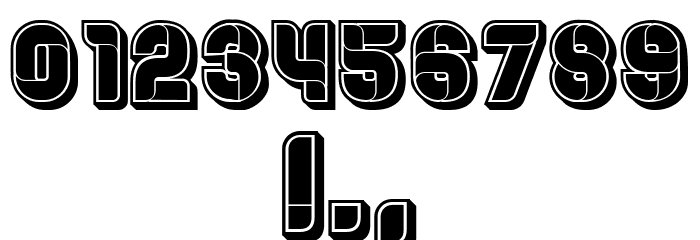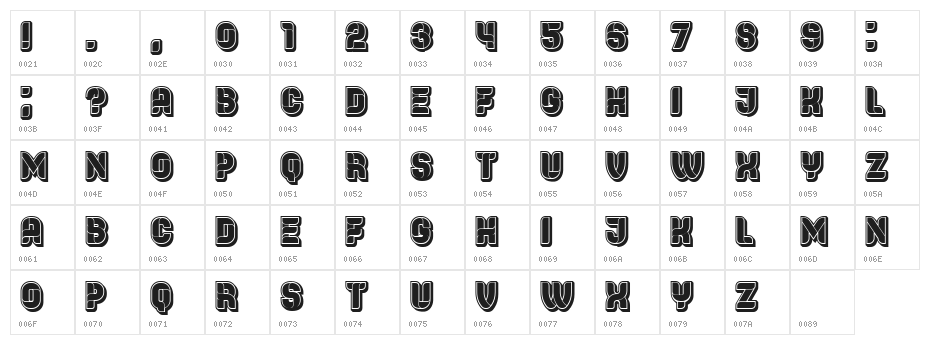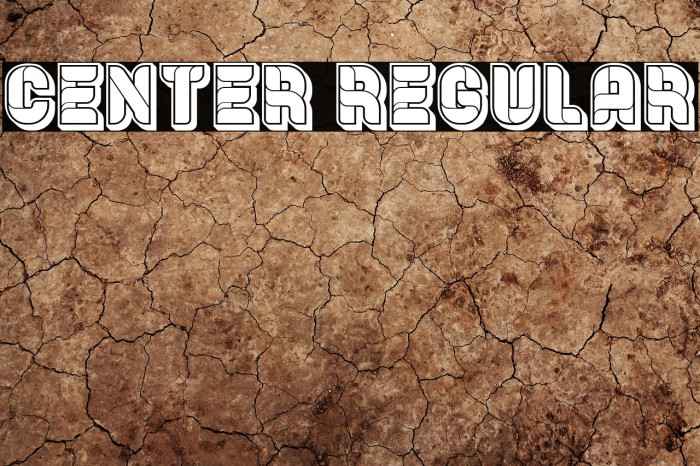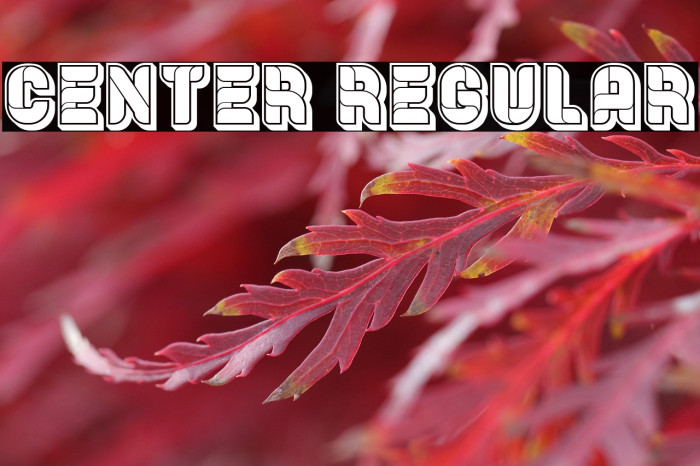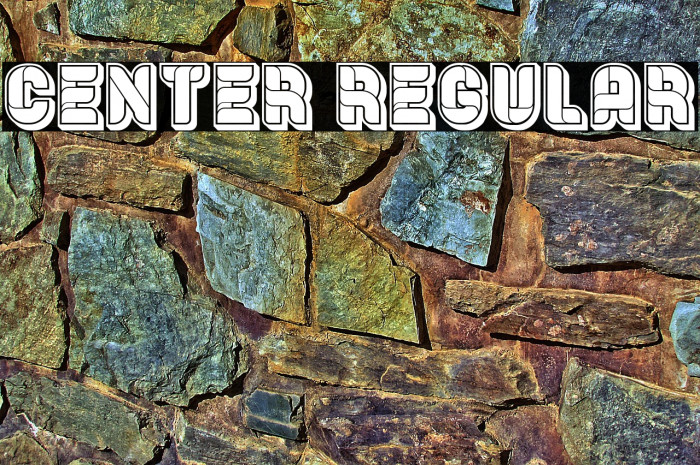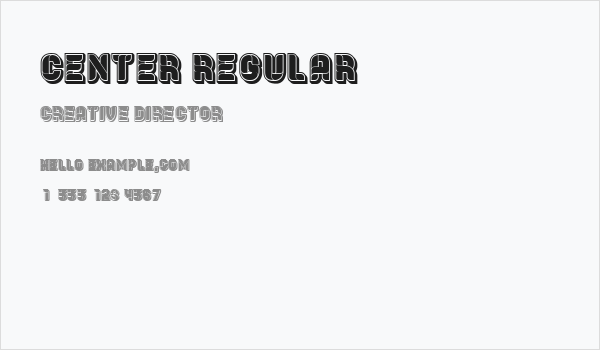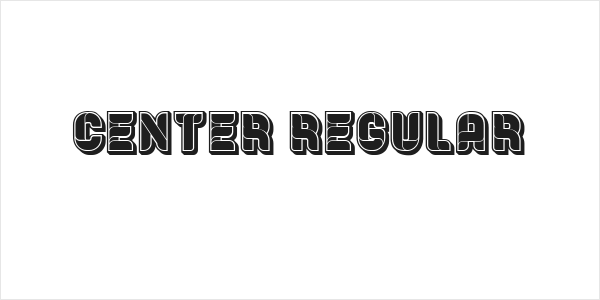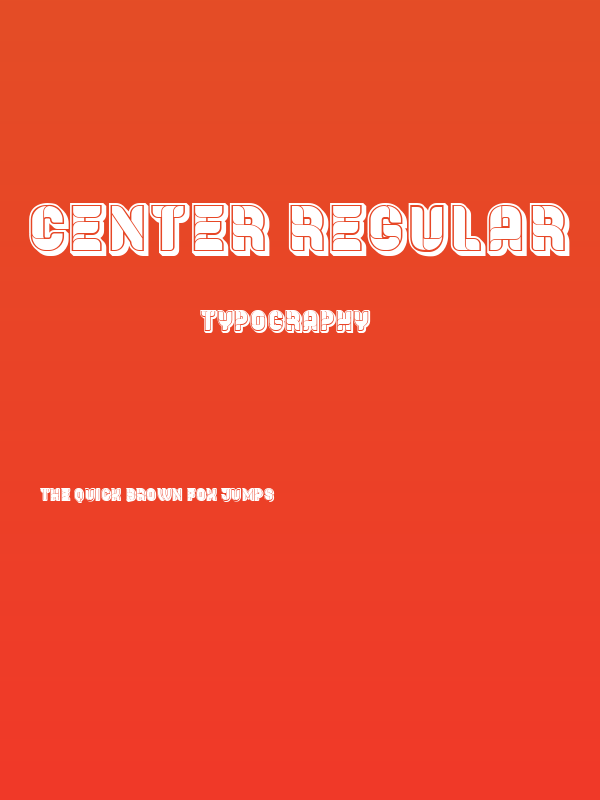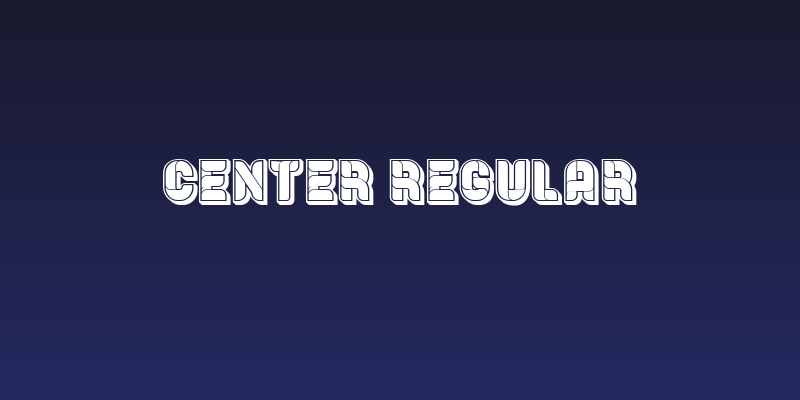
Center Regular Font
Center Regular Description
This font features a bold, three-dimensional appearance with a distinct outline that creates a striking visual effect. The characters are uppercase and numerals, each with a shadow effect that gives a sense of depth and volume. The design is geometric and structured, with clean lines and a modern aesthetic. The font's style is eye-catching, making it suitable for impactful headlines and display purposes. Its unique outline and shadow combination make it stand out, adding a layer of sophistication and boldness to any design.
| Proposed Projects | Ideal for posters, logos, headlines, and any design requiring a bold, modern statement. |